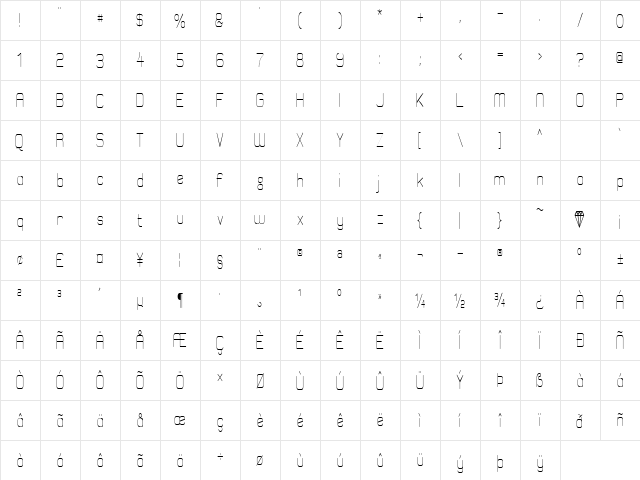
Elgethy Est Condensed Regular
Design Context for Elgethy Est Condensed Typeface
Elgethy Est Condensed is a composed and adaptable typeface that performs quietly and consistently across a wide range of design contexts. The condensed width makes it efficient for tight spaces without sacrificing legibility.
Pro Tip: Use Elgethy Est Condensed in both headline and body roles to test its range before committing to a single application.